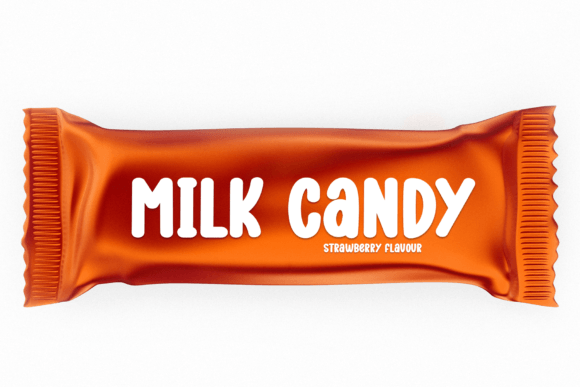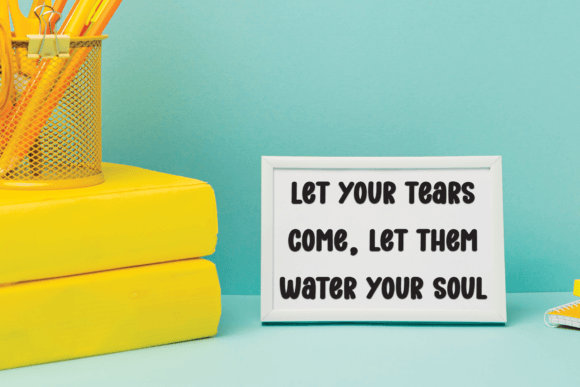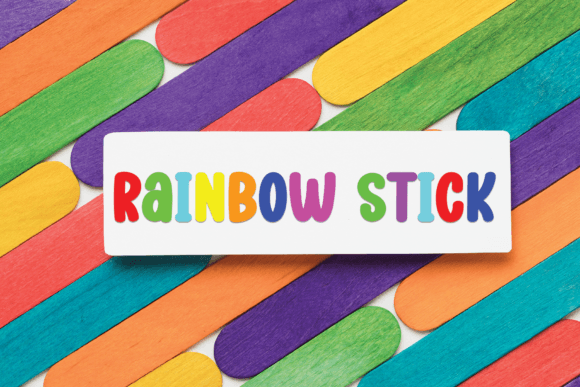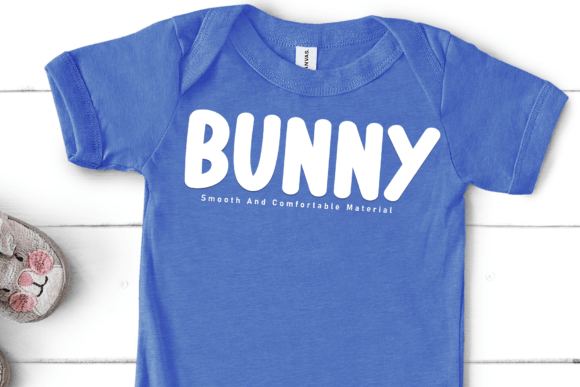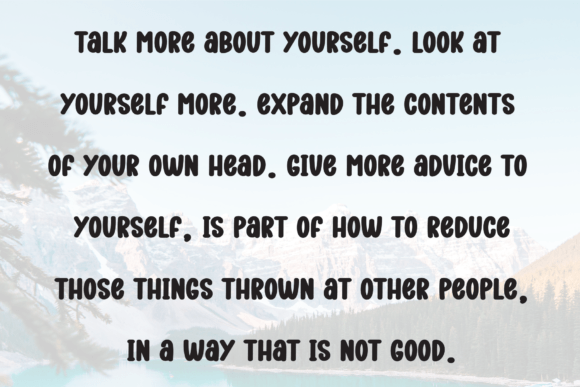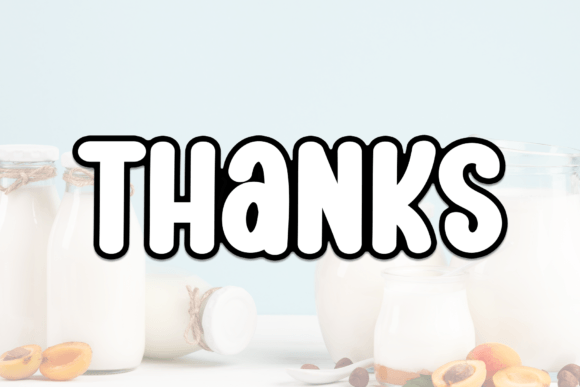
Introducing Goat Milk Font: The Sweet and Friendly Handwritten Font
Are you a designer or crafter looking for a unique and versatile font to elevate your creative projects? Look no further than Goat Milk Font! This sweet and friendly handwritten font is perfect for a wide range of designs, from rustic and natural to modern and playful. With its natural and unique style, Goat Milk Font is sure to inspire your imagination and take your designs to the next level.
The Characteristics of Goat Milk Font
Goat Milk Font is a handwritten font that exudes warmth and friendliness. Its soft, rounded edges and flowing curves give it a natural and organic feel, making it perfect for designs that require a personal touch. The font’s unique style is reminiscent of handwritten notes and letters, adding a touch of whimsy and charm to any design.
What Makes Goat Milk Font So Versatile?
One of the things that sets Goat Milk Font apart from other fonts is its incredible versatility. Its natural and unique style makes it fitting for a large pool of designs, from rustic and vintage-inspired projects to modern and minimalist designs. Whether you’re creating a logo, a poster, a greeting card, or a digital graphic, Goat Milk Font is sure to add a touch of personality and charm.
Goat Milk Font is a dream come true for designers and crafters who are looking for a font that can keep up with their creative vision. Whether you’re a professional designer or a DIY crafter, this font is easy to use and can be adapted to suit a wide range of projects. With Goat Milk Font, you can:
• Create beautiful and unique logos and branding materials
• Design stunning posters, flyers, and brochures
• Make personalized greeting cards and invitations
• Add a touch of personality to your digital graphics and social media posts
• And much more!
Why Choose Goat Milk Font?
So why choose Goat Milk Font over other fonts? Here are just a few reasons:
• Unique and distinctive style: Goat Milk Font has a one-of-a-kind style that will set your designs apart from the crowd.
• High-quality: Goat Milk Font is a high-quality font that is designed to produce crisp and clear results.
• Versatile: This font can be used for a wide range of projects, from print to digital.
Tips for Using Goat Milk Font
Here are a few tips for getting the most out of Goat Milk Font:
• Experiment with different sizes and colors: Goat Milk Font looks great in a variety of sizes and colors, so don’t be afraid to experiment and find the perfect combination for your design.
• Pair with other fonts: Goat Milk Font pairs well with other fonts, so try combining it with a bold font for headings or a clean font for body text.
• Use for display text: Goat Milk Font is perfect for display text, such as titles, headings, and captions.
In conclusion, Goat Milk Font is a sweet and friendly handwritten font that is perfect for designers and crafters who are looking for a unique and versatile font to elevate their creative projects. With its natural and unique style, Goat Milk Font is sure to inspire your imagination and take your designs to the next level. So why wait? Try Goat Milk Font today and see the difference it can make in your designs!